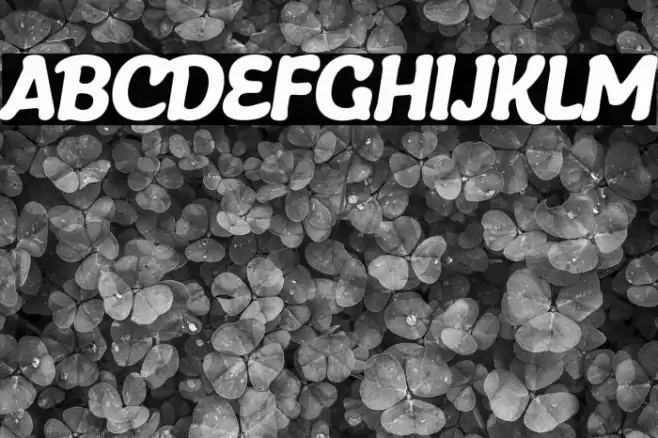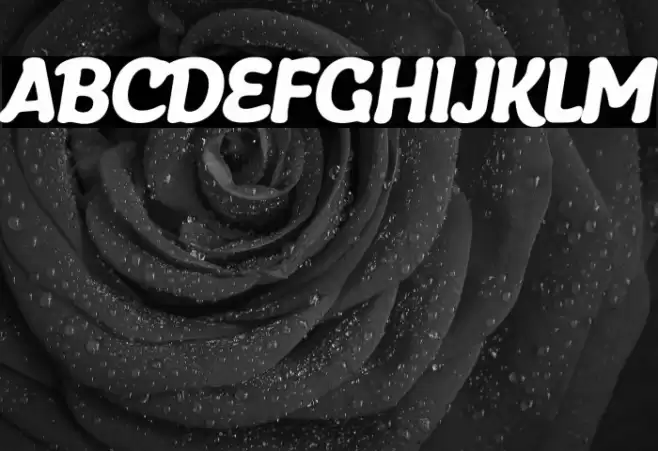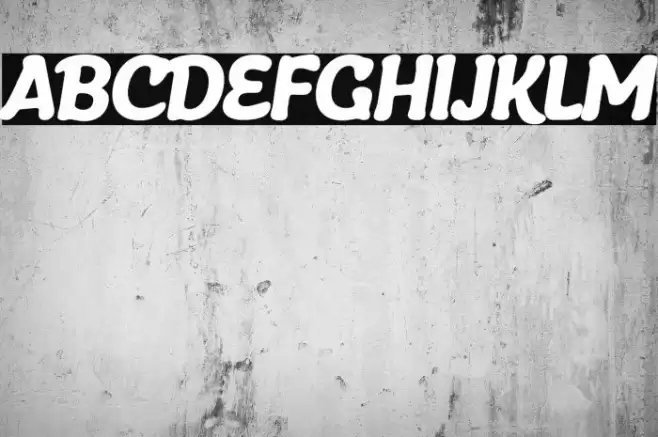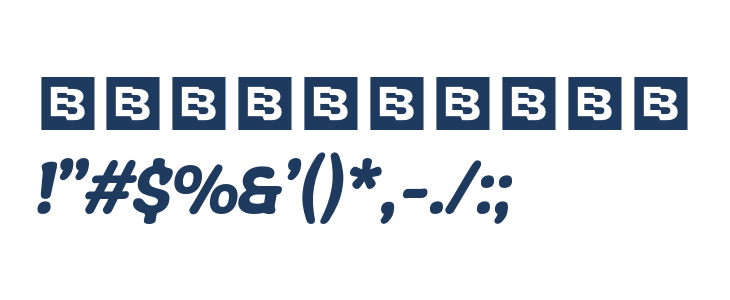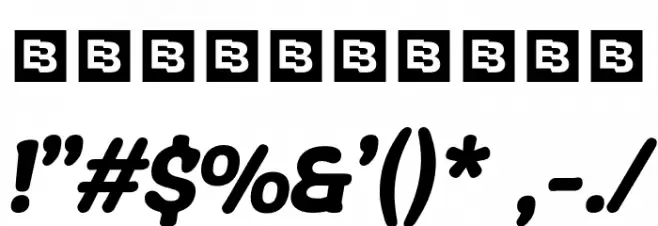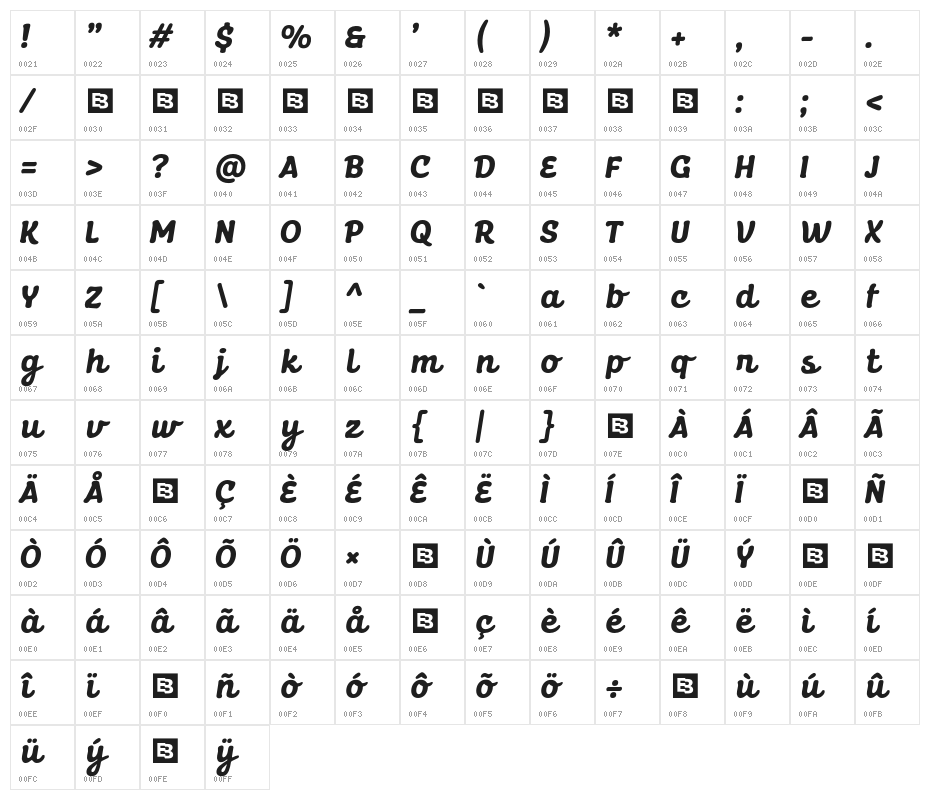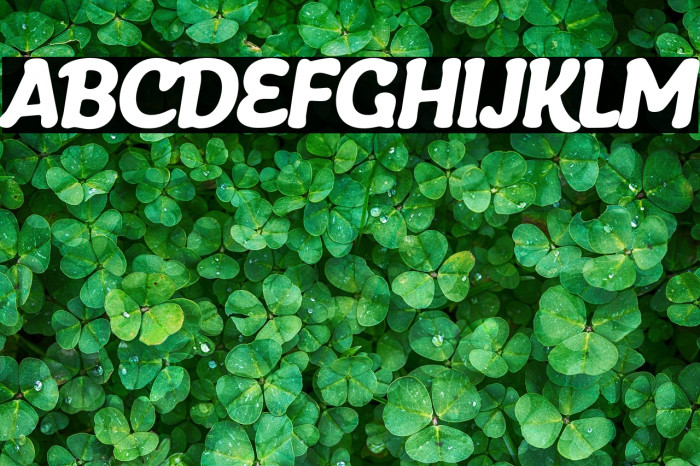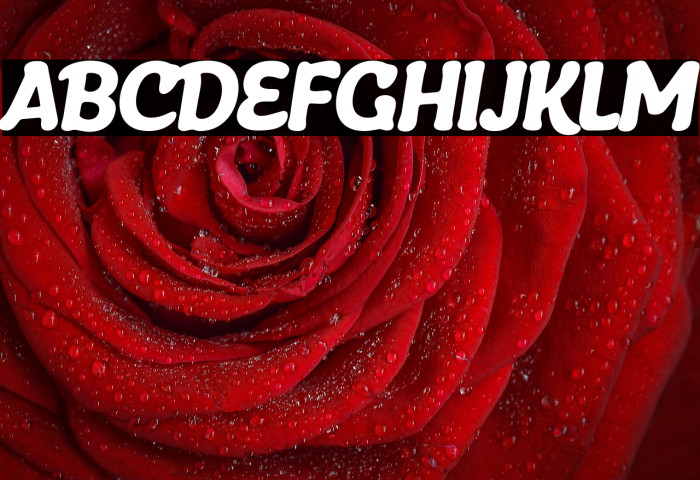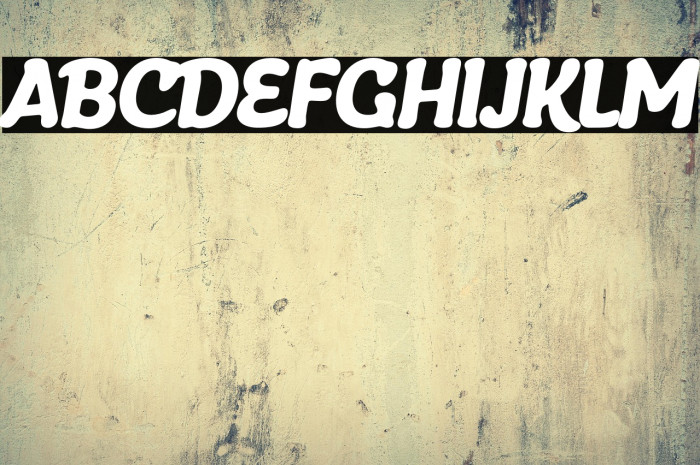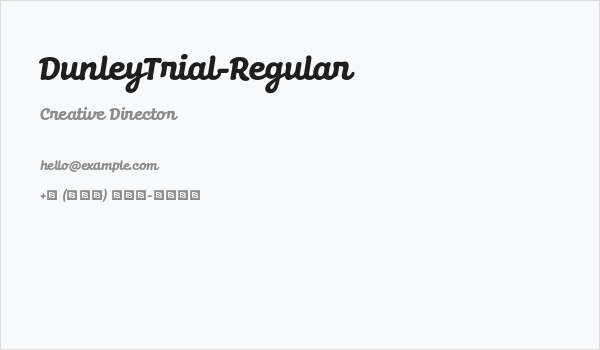
DunleyTrial-Regular Font
DunleyTrial-Regular Description
This font features a bold, playful script style with rounded edges and a smooth flow between characters. The uppercase letters are slightly larger and more pronounced, while the lowercase letters maintain a consistent height and curvature. The numbers and special characters are designed to match the overall style, providing a cohesive look. The font's thick strokes and rounded forms give it a friendly and approachable appearance, making it suitable for a variety of creative projects.
A bold, playful script font with rounded edges and smooth character flow from Uncategorized fonts.
- Font: DunleyTrial-Regular
- Proposed Projects: Ideal for branding, packaging design, children's books, and playful advertising campaigns.
- Overall Style: Playful, Modern